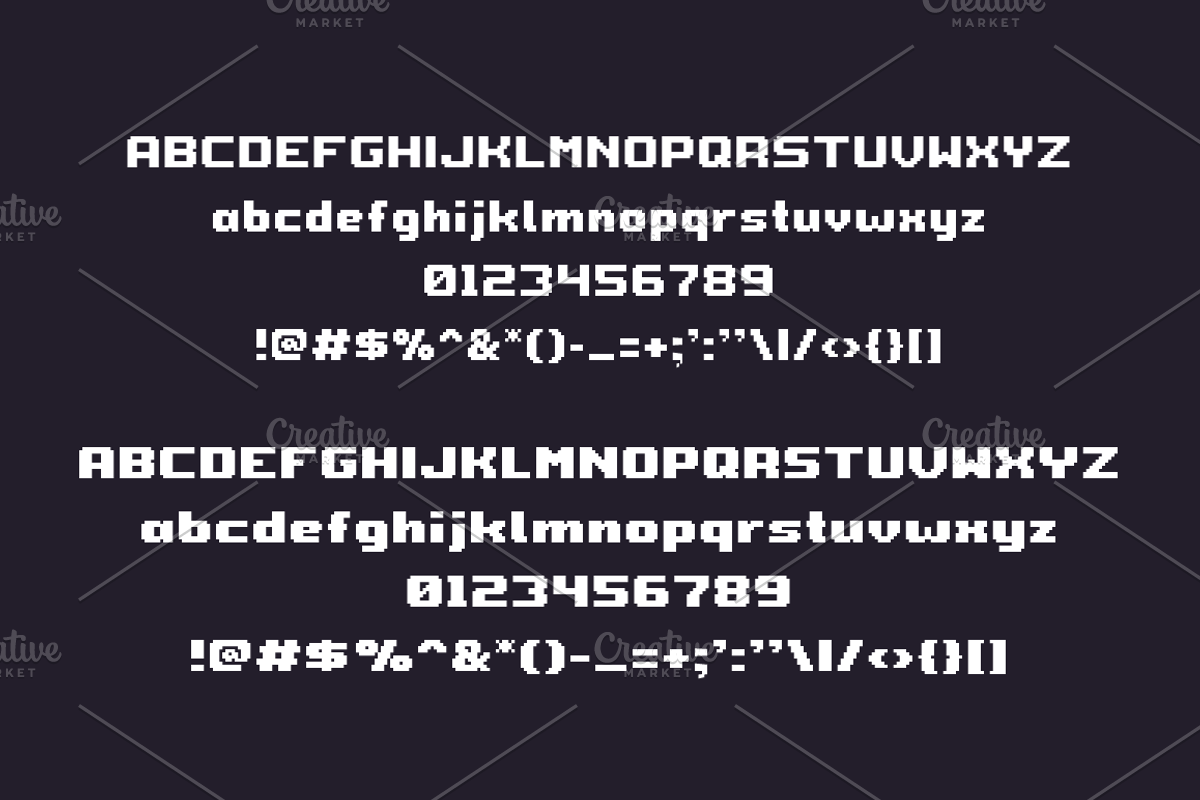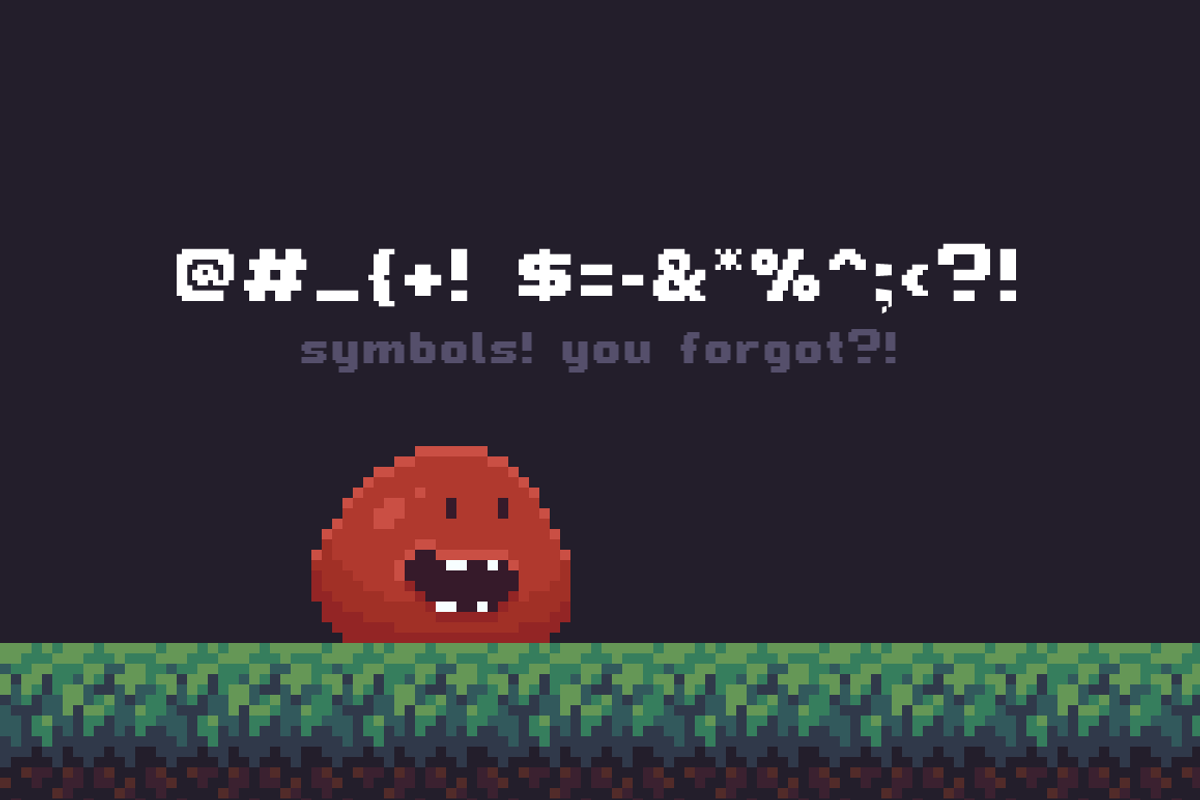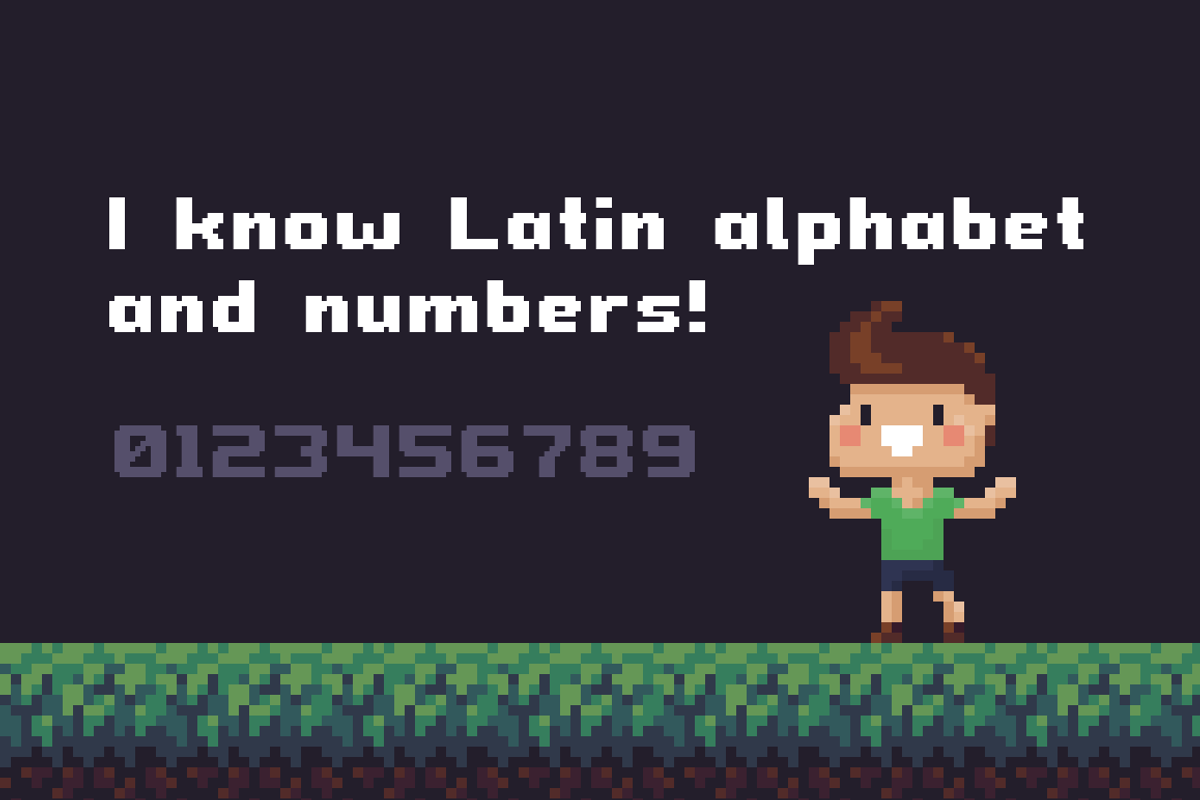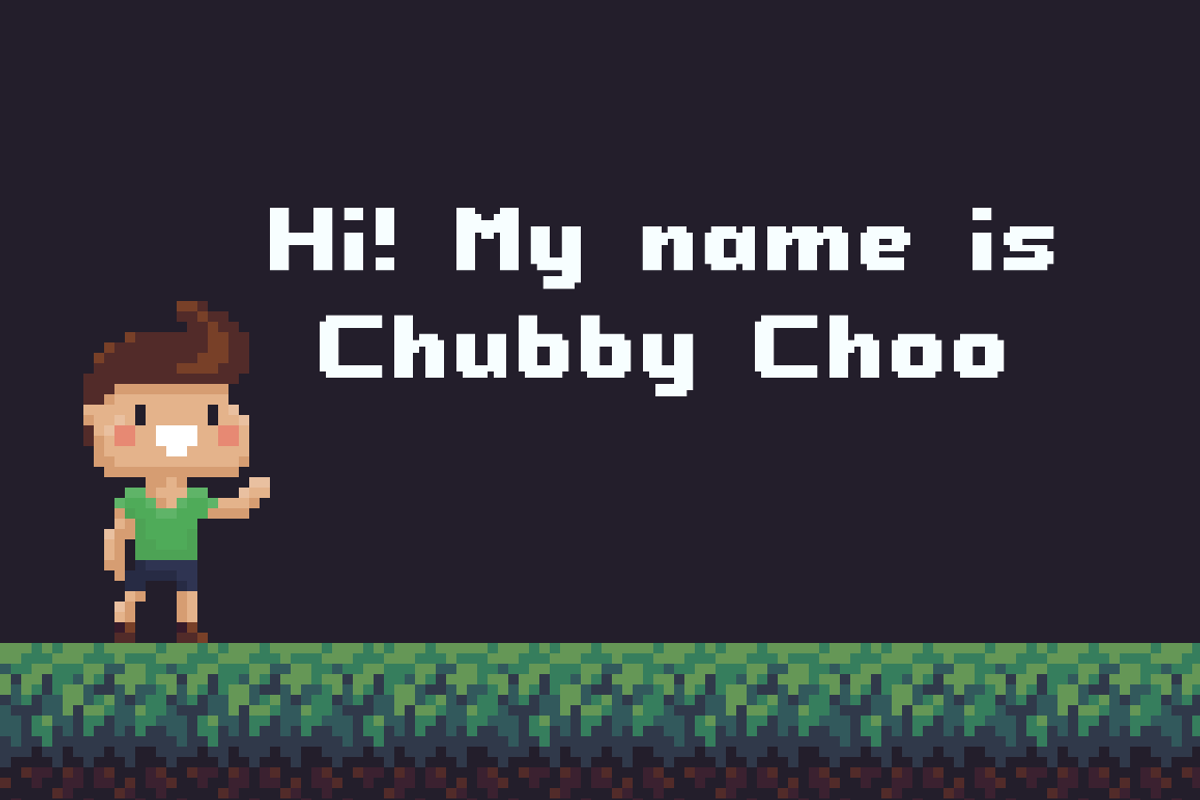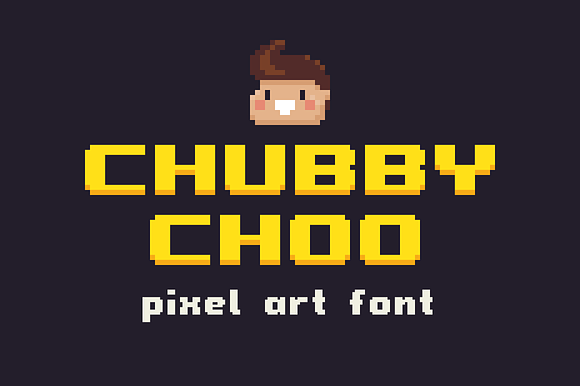
Chubby Choo - Pixel Art Font
Chubby Choo is a retro bitmap typeface. It contains:
Latin alphabet letters
- Chubby Choo Regular
- Chubby Choo SemiBold